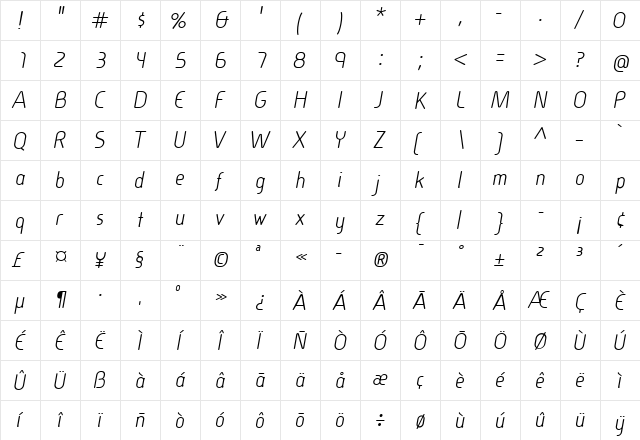
Cineplex LT Italic Font Preview
Design Context for Cineplex LT Typeface
Cineplex LT takes a measured approach to typography — its balanced proportions and neutral character make it a reliable workhorse for both digital and print work. The slanted form adds forward momentum and visual energy. The delicate stroke weight brings airiness and refinement to layouts.
Pro Tip: Try Cineplex LT for annotation and caption copy alongside an upright companion — the contrast in angle creates a dynamic but ordered typographic system.